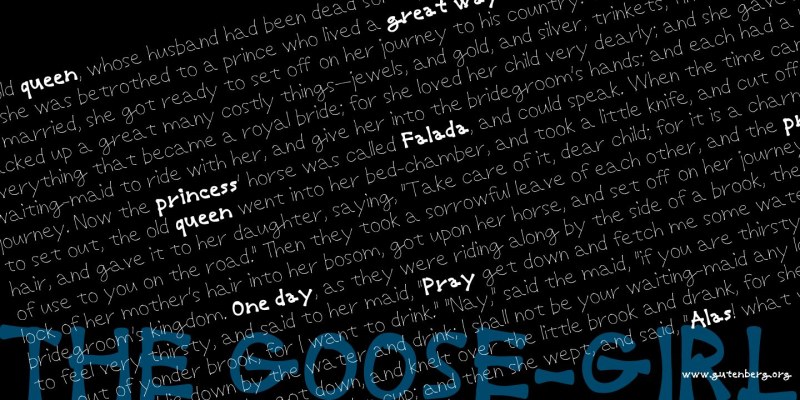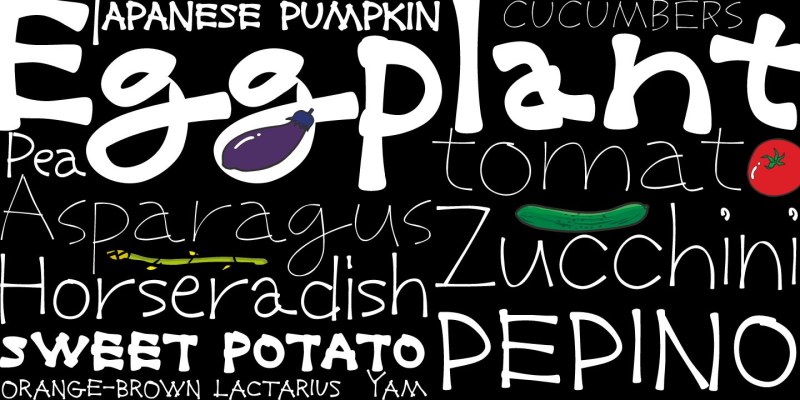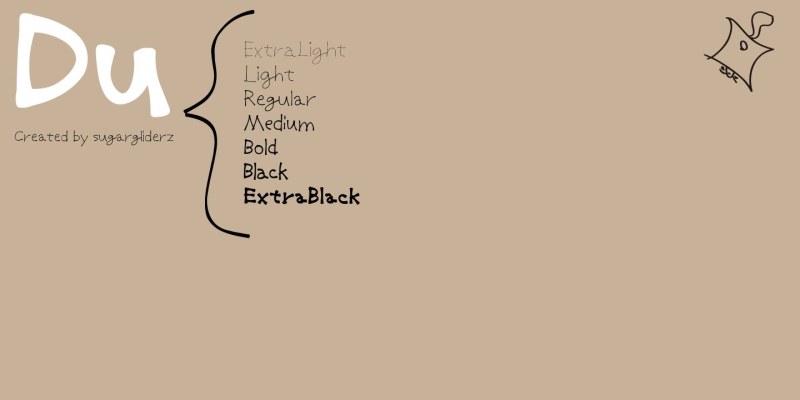
Du Font Family
Du is a self hommage to Uncertain Felttip. Uncertain, made in 2008, is a typeface which reproduced faithfully the style in which I am writing on copy paper, usually using the felt-tip pen. This time, I wrote the new family by the same method but using the tablet PC and the touch pen.
Although, as for some characters, Uncertain differs in a form, it is the result of reflecting my hand writing. I wrote all the characters. If it is original, all the characters diverted and composed, for example, characters, such as Aacute and Agrave, are written. Different specification from Uncertain is family composition. Although Uncertain had only 3 weight, 7 weight were designed for Du. This way a user can choose his favorite weight because the variation of weights increased.
Where Du Font Family works best
Du Font Family brings a personal, handwritten warmth to invitations, menus and place cards.
Craft brands — coffee, cosmetics, bakery — use scripts like Du Font Family for signature-style logos and labels.
Pair Du Font Family with a plain sans for quotes, stories and Pinterest pins that feel handmade.